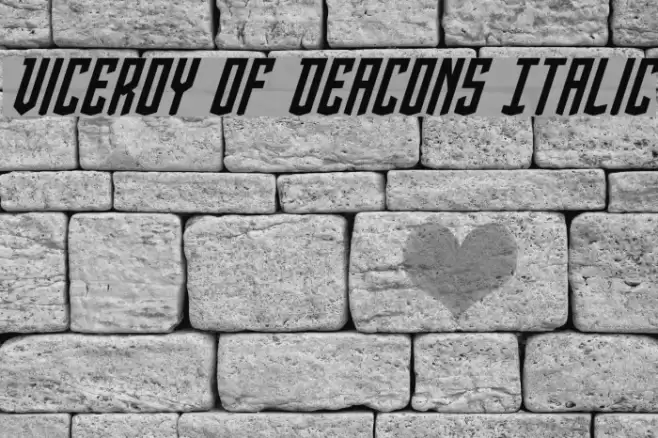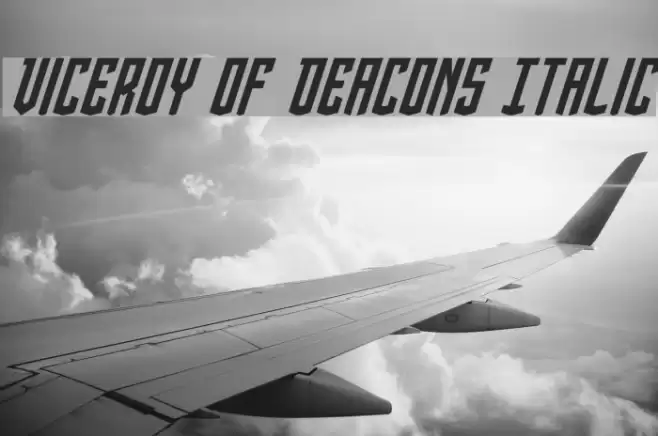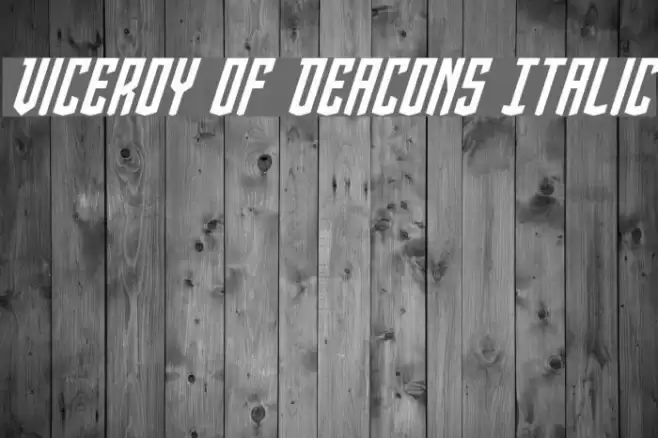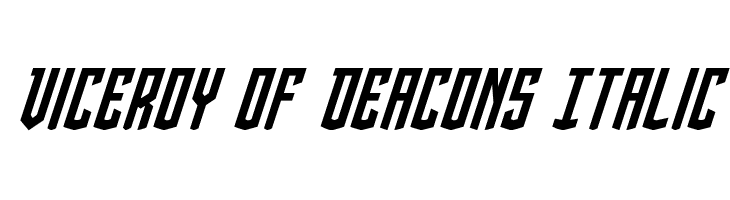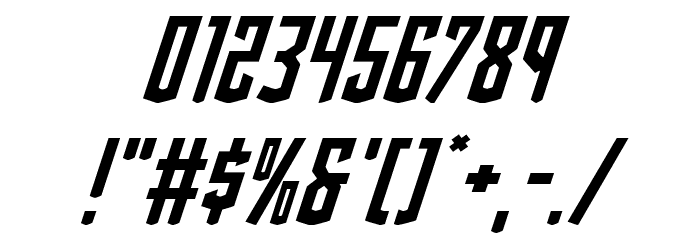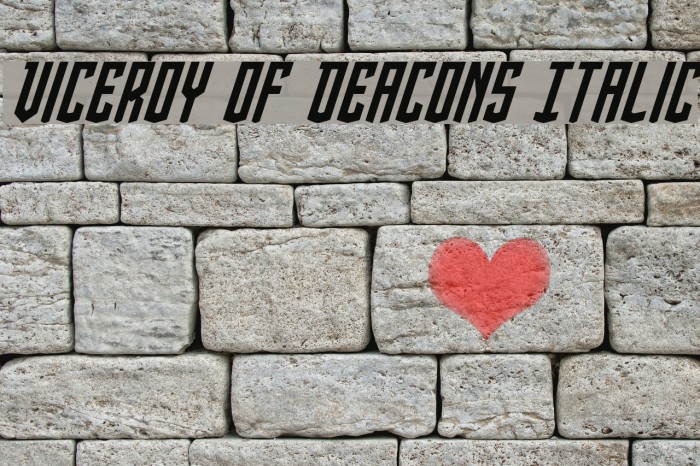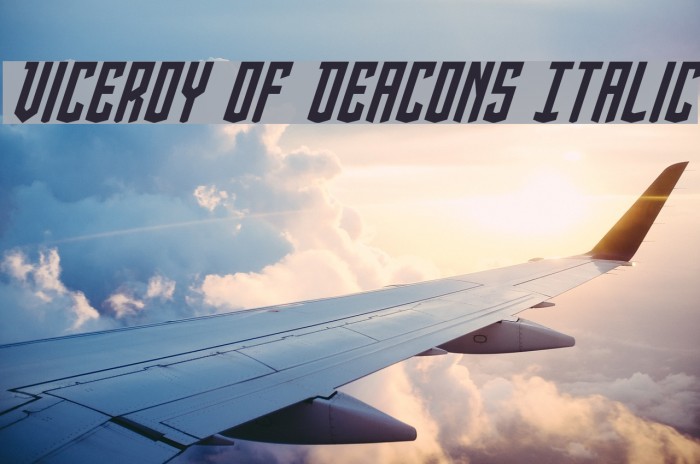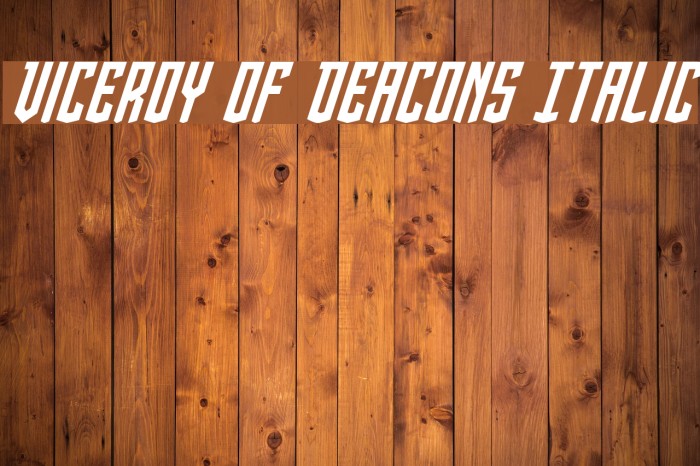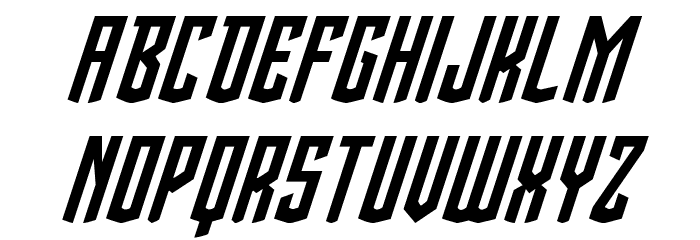
Viceroy of Deacons Italic Font
Viceroy of Deacons Italic Description
This font features a bold and dynamic style with a strong italic slant, giving it a sense of movement and energy. The characters are sharply angled with a modern, edgy appearance, making it stand out in any design. The uppercase and lowercase letters maintain a consistent style, with the uppercase being slightly more elongated. Numbers and special characters follow the same bold and angular design, ensuring uniformity across all text elements. The font's unique style makes it suitable for projects that require a strong visual impact.
A bold, italic font with sharp angles and a dynamic, modern style from Modern fonts.
- Proposed Projects: Ideal for sports branding, dynamic posters, video game titles, and edgy graphic designs.